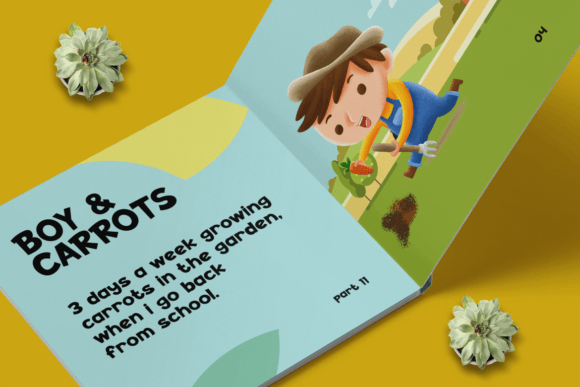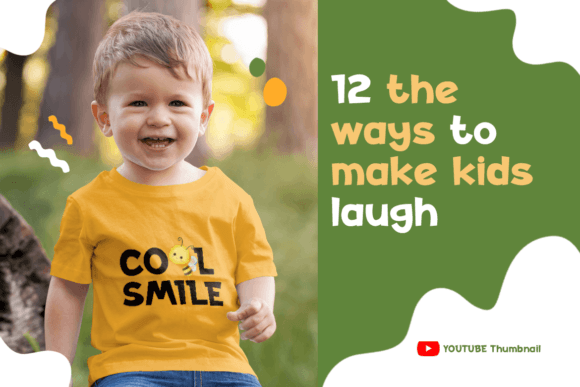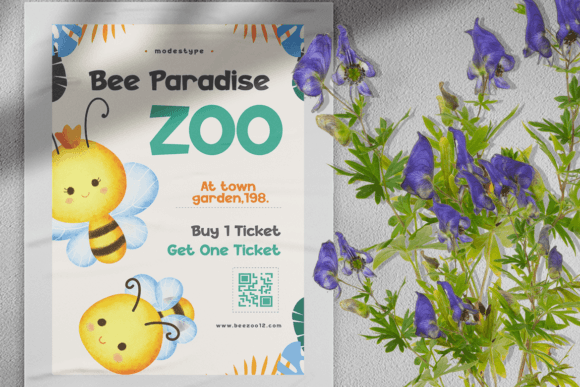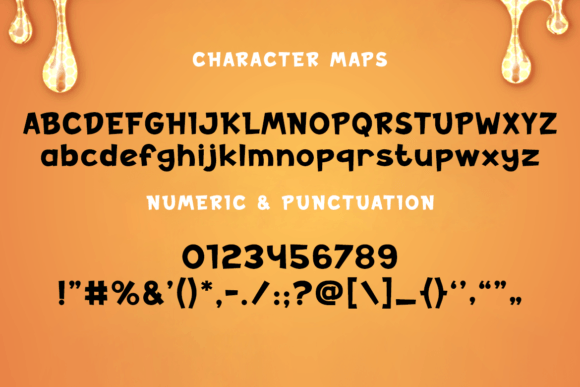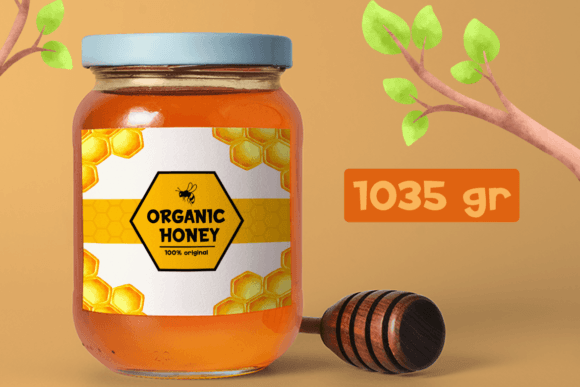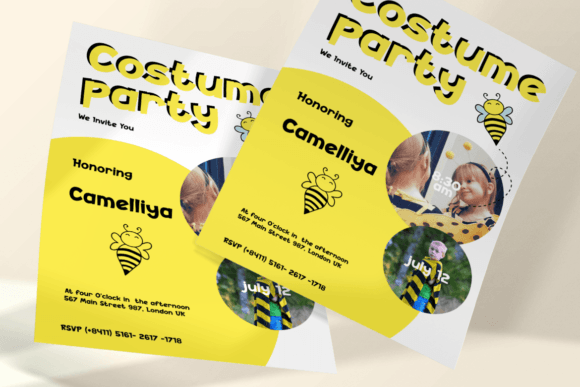
Introducing Busy Bee Font: The Perfect Choice for Kids’ Content Creators
In a world where creativity and fun are essential for kids’ development, the right font can make all the difference. That’s where Busy Bee Font comes in – a delightful, kid-friendly font designed to bring a smile to young faces. In this article, we’ll dive into the world of Busy Bee Font, exploring its features, benefits, and uses, perfect for designers, crafters, and content creators.
The Birth of Busy Bee Font
The Busy Bee Font was born from the idea of capturing the essence of a busy bee’s world. Bees are known for their industrious nature, flitting from flower to flower, collecting nectar, and creating honey. This font embodies that same sense of activity and energy, making it perfect for content aimed at kids.
Readability and Friendliness
Busy Bee Font boasts top-notch readability, ensuring that your message is conveyed clearly and effectively. Its friendly and engaging design makes it an ideal choice for kids’ audiences, who will love the playful and approachable feel of this font. Whether you’re creating a children’s book, designing a poster, or crafting a social media post, Busy Bee Font is sure to delight.
Perfect for the Children’s Books Market
The children’s books market demands a font that is both fun and easy to read. Busy Bee Font ticks all the boxes, making it an excellent choice for authors, illustrators, and publishers. Its engaging design will capture young readers’ attention, drawing them into the world of your story.
Beyond Children’s Books: Versatile Uses for Busy Bee Font
Busy Bee Font’s versatility extends far beyond children’s books. Its playful design makes it suitable for:
- Online games: Add a touch of whimsy to your game’s UI, making it more appealing to young players.
- Teens event posters: Create eye-catching posters for school events, concerts, or festivals.
- School supplies font: Design fun and colorful school supplies, such as stickers, notebooks, or pencils.
- Posters and movie titles: Use Busy Bee Font to create bold, attention-grabbing titles for movies, plays, or musicals.
- YouTube covers and thumbnails: Stand out on YouTube with custom covers and thumbnails that showcase your channel’s personality.
- Social media page covers: Add a pop of color and fun to your social media profiles.
Why Designers and Crafters Love Busy Bee Font
Busy Bee Font offers a range of benefits for designers and crafters, including:
- Ease of use: Busy Bee Font is easy to read and works well in a variety of contexts.
- Customization: Experiment with different colors, sizes, and styles to make your design pop.
- Uniqueness: Stand out from the crowd with a font that is both playful and distinctive.
Tips for Using Busy Bee Font
To get the most out of Busy Bee Font, try the following:
- Pair Busy Bee Font with complementary fonts to create visual interest.
- Experiment with different colors and textures to add depth to your design.
- Use Busy Bee Font consistently across your brand or project to create a cohesive look.
Busy Bee Font is a delightful, kid-friendly font that is sure to bring a smile to young faces. Its readability, friendliness, and versatility make it an excellent choice for designers, crafters, and content creators. Whether you’re working on a children’s book, designing a poster, or crafting social media content, Busy Bee Font is the perfect choice. So why not give it a try and see the difference it can make in your next project?